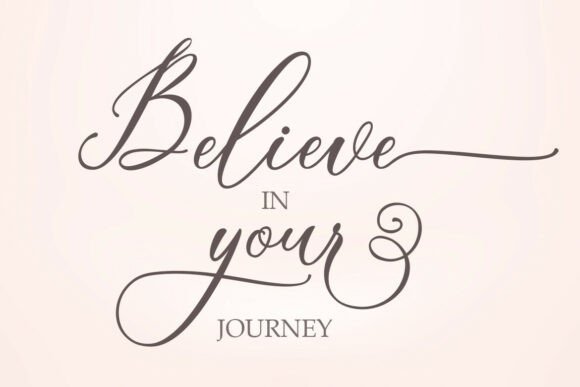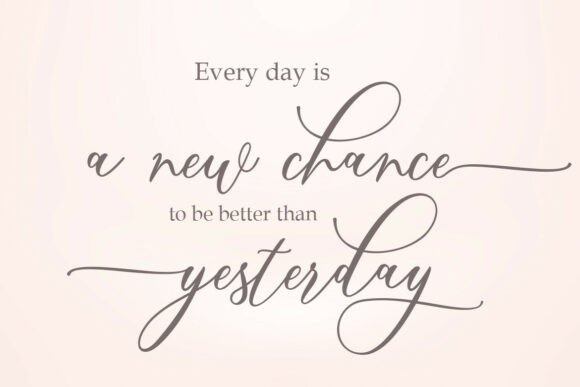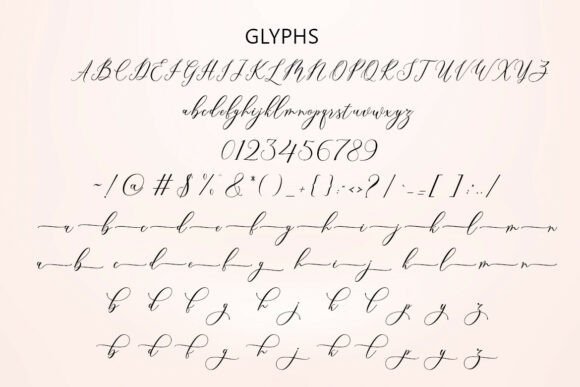
Introduction to Mairenza Font
Have you ever stared at a blank page, waiting for inspiration to strike, only to find the perfect phrase or design element that brings your creative project to life? For designers, those moments of clarity can be a game-changer. And, for those seeking a sophisticated yet approachable design solution, Mairenza Font is about to become your new best friend.
As a highly versatile and elegant typeface, Mairenza Font effortlessly elevates any design endeavor with its sleek, fluid strokes and subtly arched forms. Whether you’re working on a high-quality editorial spread, a refined branding design, or even a wedding invitation, Mairenza Font is the perfect accent to give your work a polished, modern vibe.
Key Features of Mairenza Font
- High-quality design resource ideal for creative projects requiring a unique touch.
- Unique, elegant design makes it an excellent choice for creative projects requiring a touch of sophistication.
- Perfect for designers working on projects that demand a high level of visual appeal and creativity.
Honest Review: Mairenza Font
As a designer, I’m always on the lookout for high-quality design resources to elevate my creative projects. Recently, I stumbled upon the Mairenza Font, and I’m excited to share my honest review.
What works well: ✨ The Mairenza Font is a beautiful, elegant script font that’s perfect for adding a touch of sophistication to your designs. I love the flowing lines and subtle flourishes that make it stand out. It’s also great for creating a sense of movement and energy in your work. Plus, it’s available for free download, which is always a bonus!
What doesn’t work well: ⚠️ The font is a bit on the heavier side, so it may not be suitable for all types of projects. Additionally, the font files could be more comprehensive, with more character sets and language support.
Overall, I’m impressed with the Mairenza Font. It’s a high-quality design resource that’s perfect for creative projects that require a touch of elegance and sophistication. While it has some limitations, I believe it’s a great addition to any designer’s toolkit.
Mairenza Font
Getting the Most Out of Mairenza Font
The Mairenza Font is ideal for various creative projects, including:
- Branding
- Marketing materials
- Editorial design